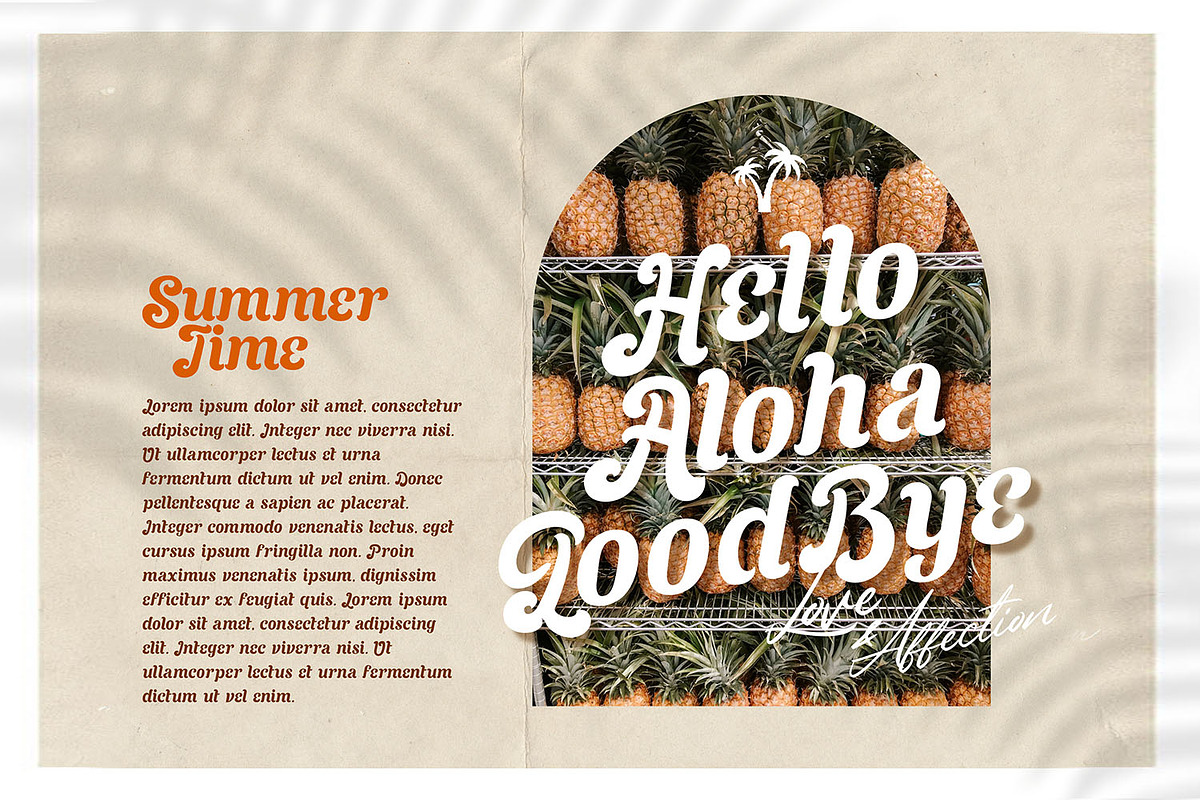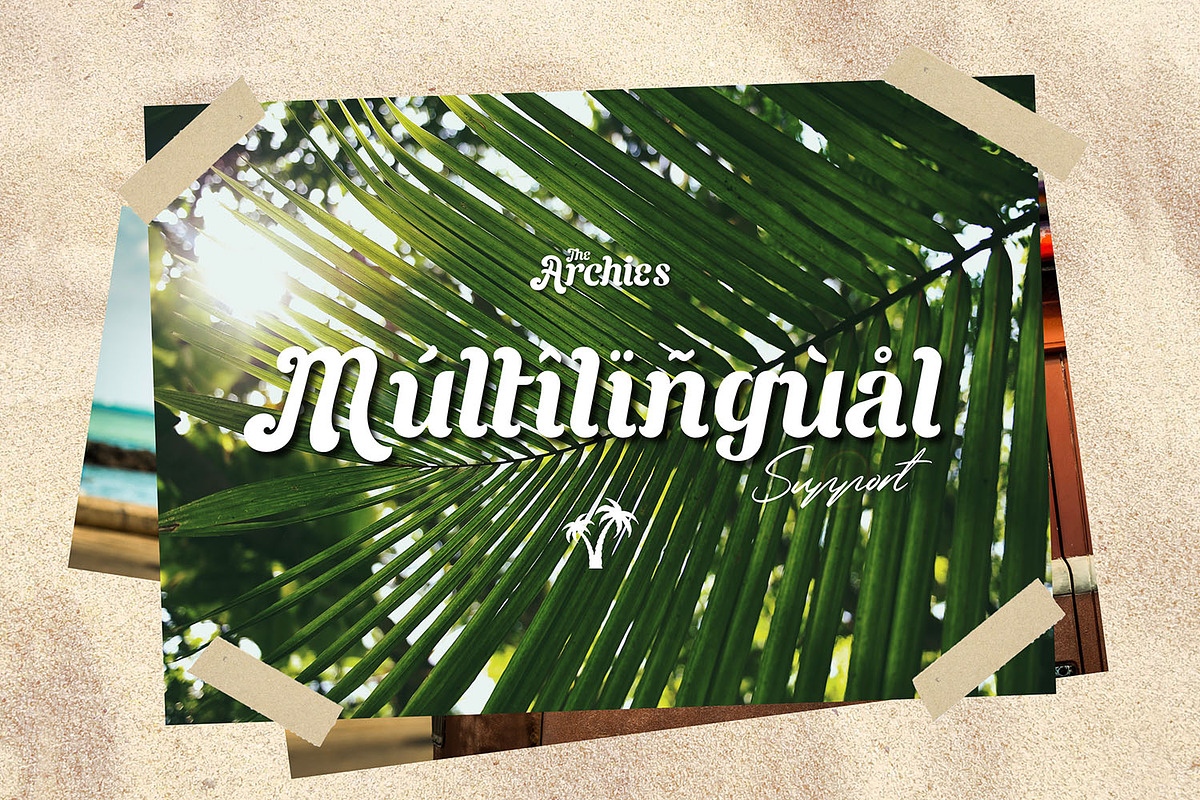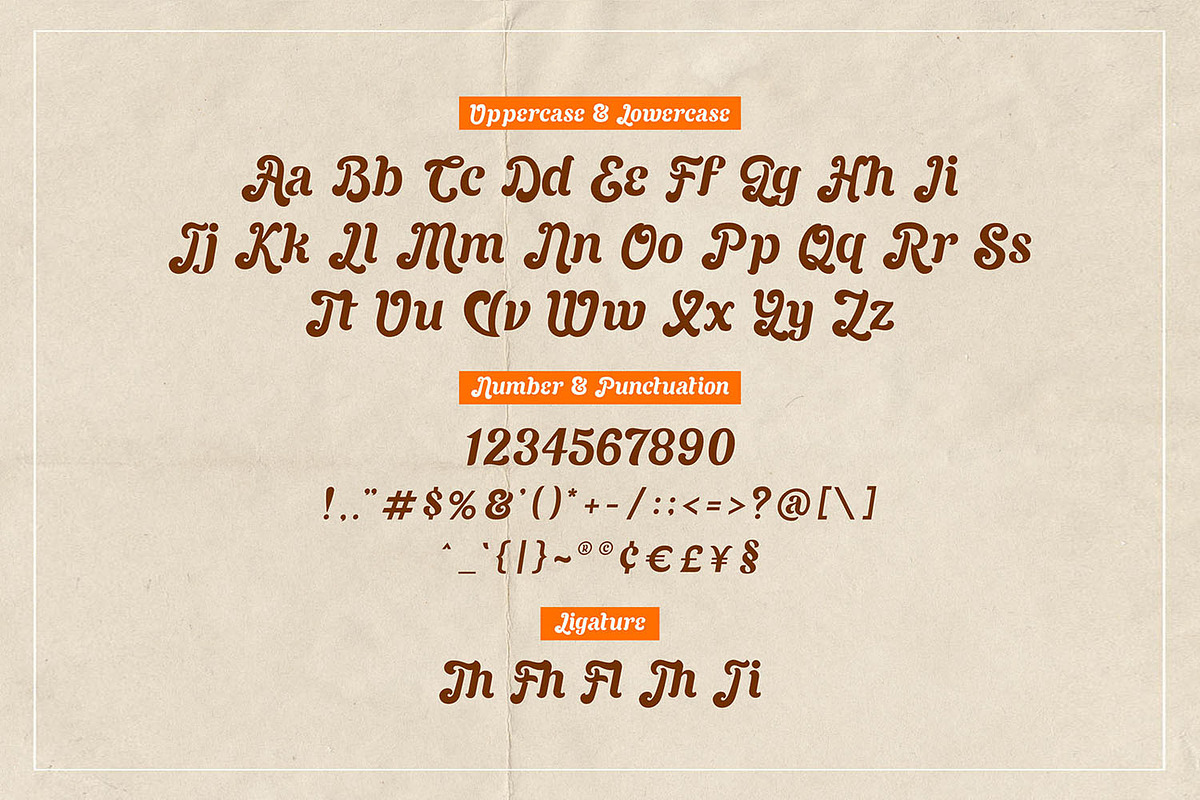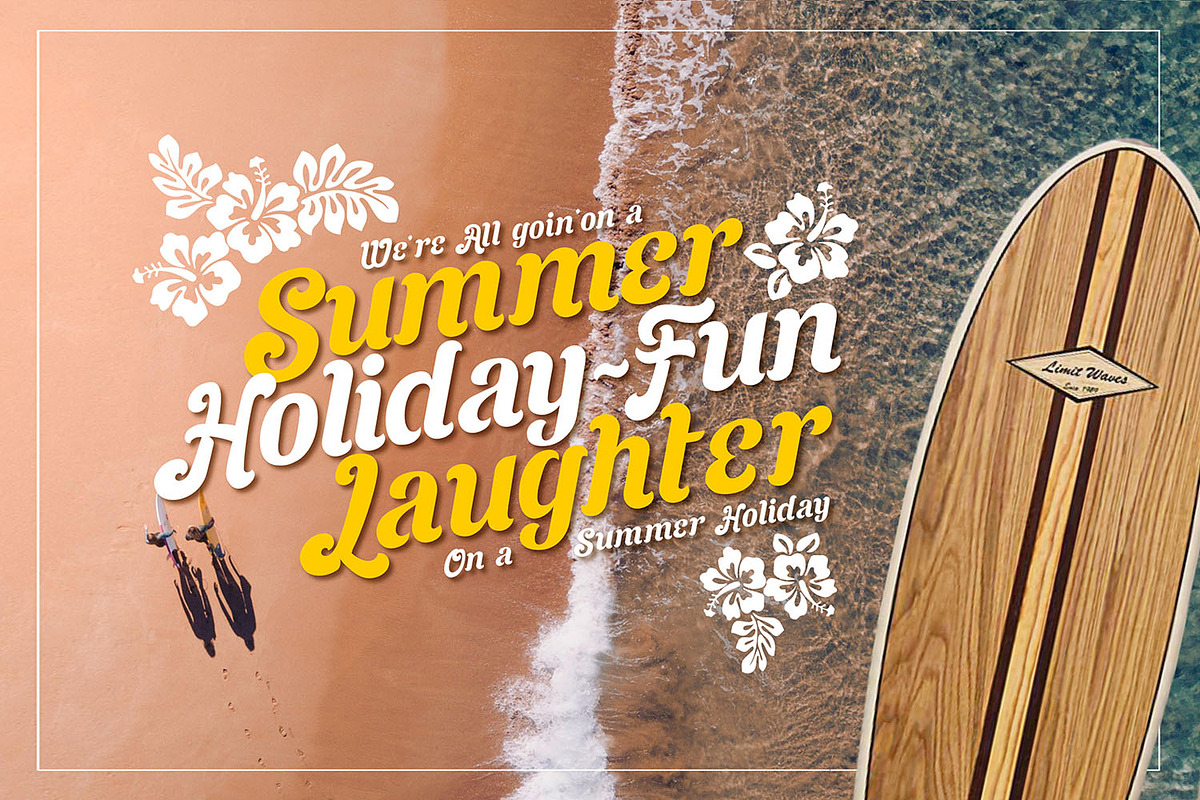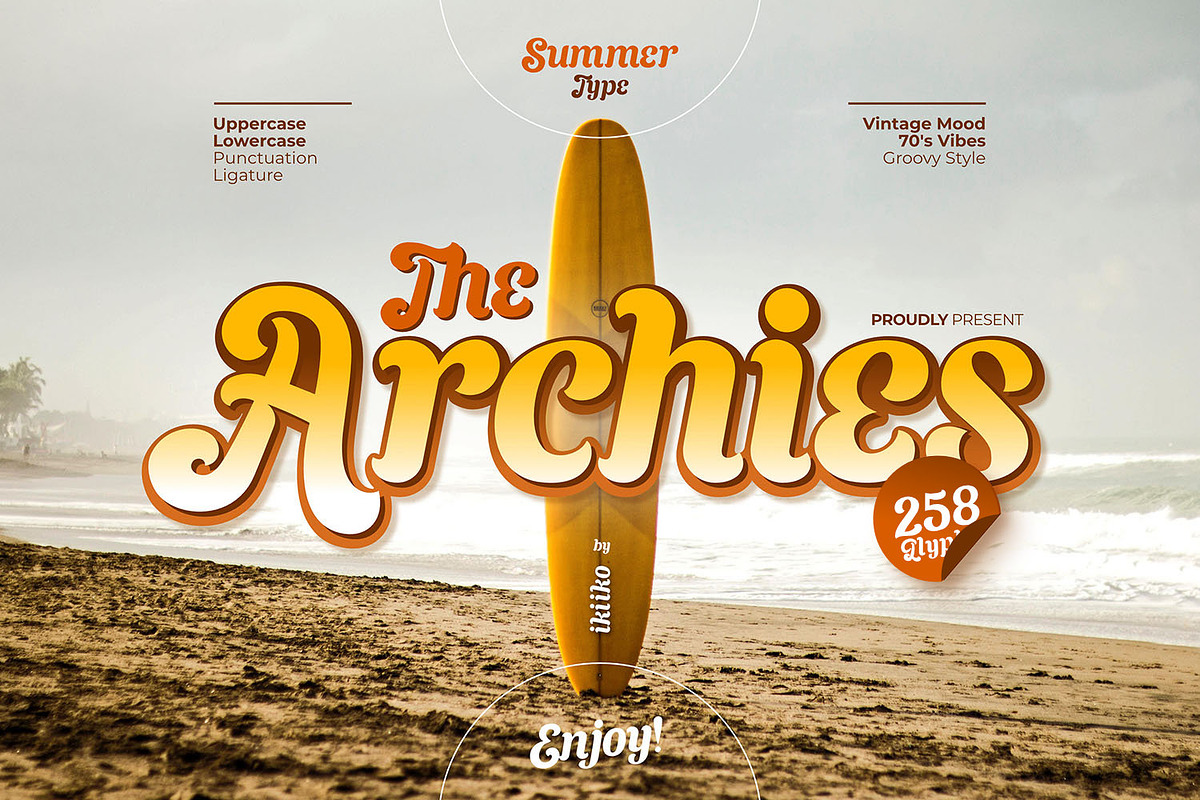
The Archies - Summer Type
"We're goin' where the sun shines brightly.. We're goin' where the sea is blue.." Cliff Richard
Proudly present The Archies Typeface, created by ikiiko.
A summer mood typeface that has a vintage style & holiday vibes. This typeface is perfect for an holiday greeting, summer camp poster, vacation title, beach & tropical design, and so much more.
- Number & Punctuation